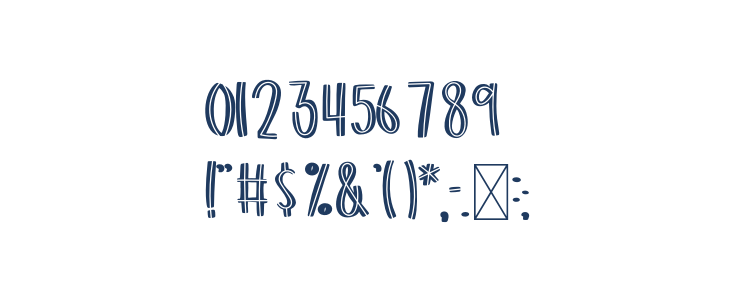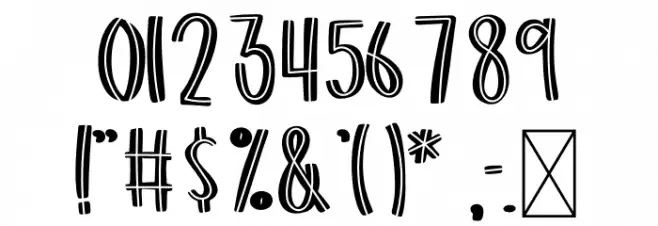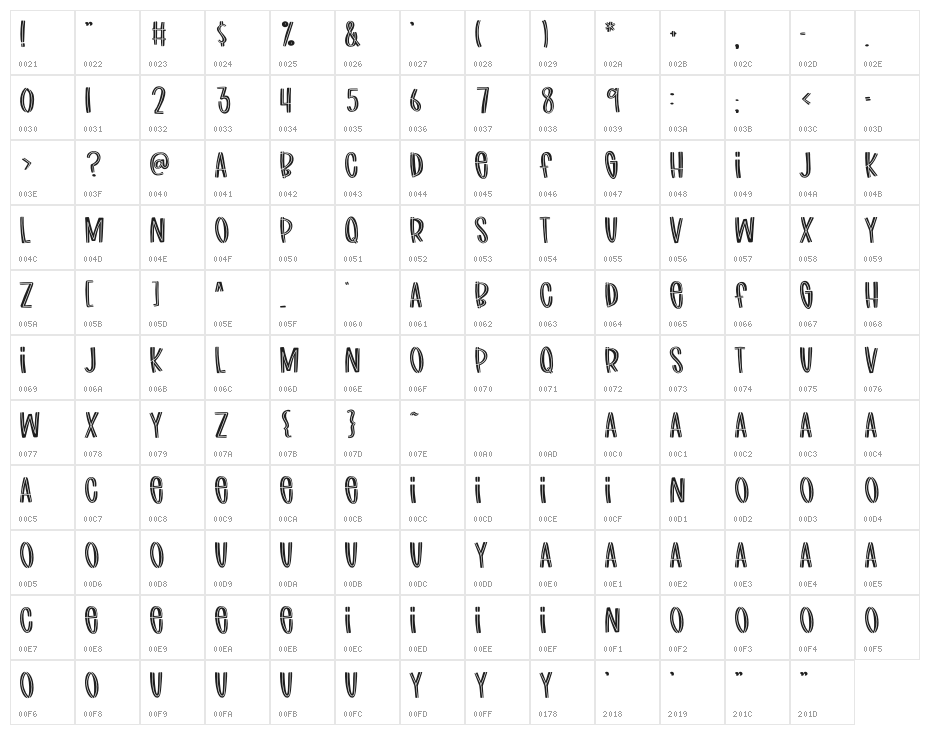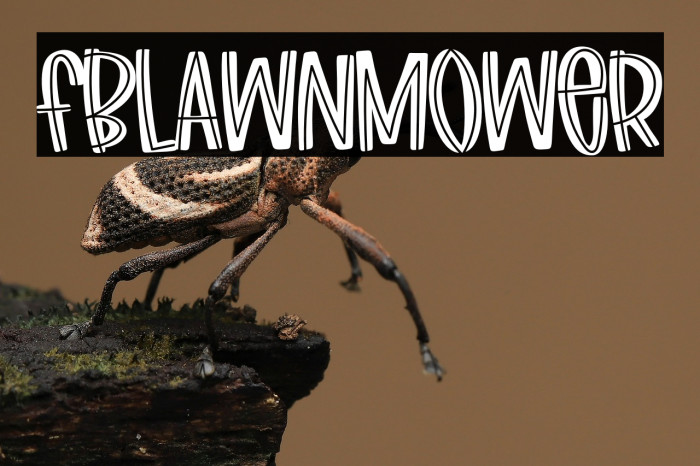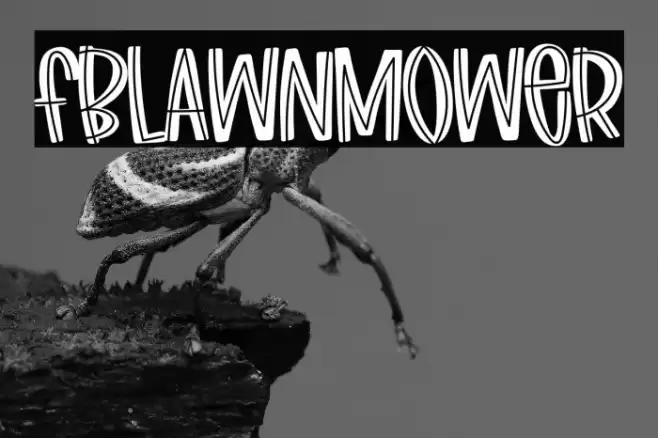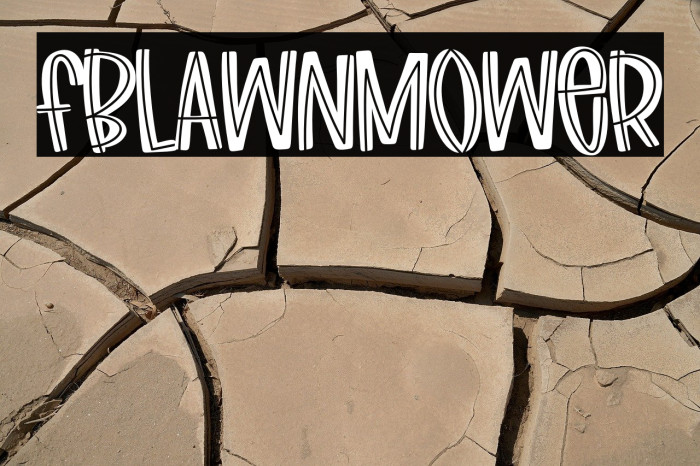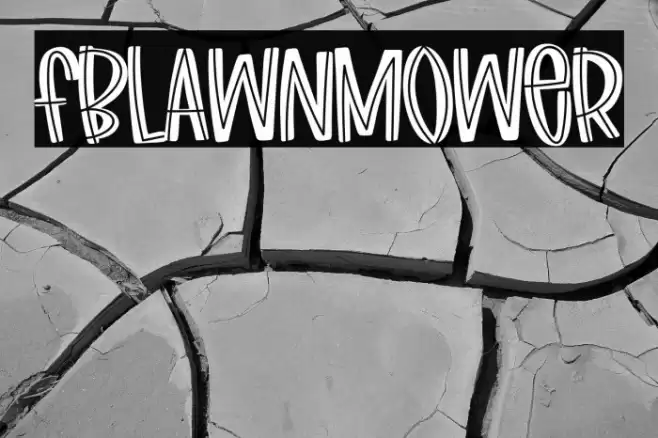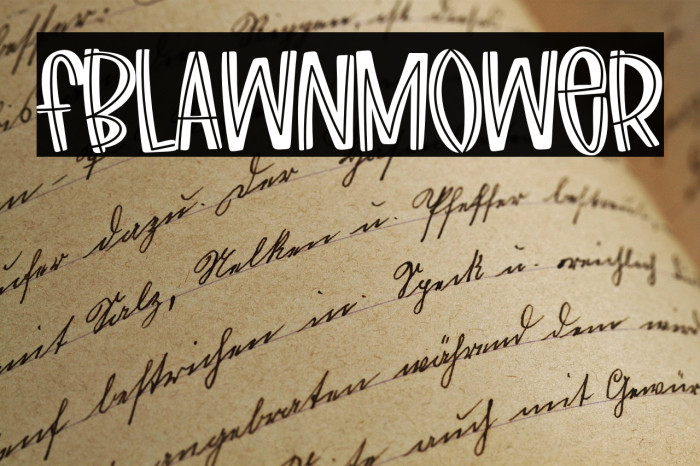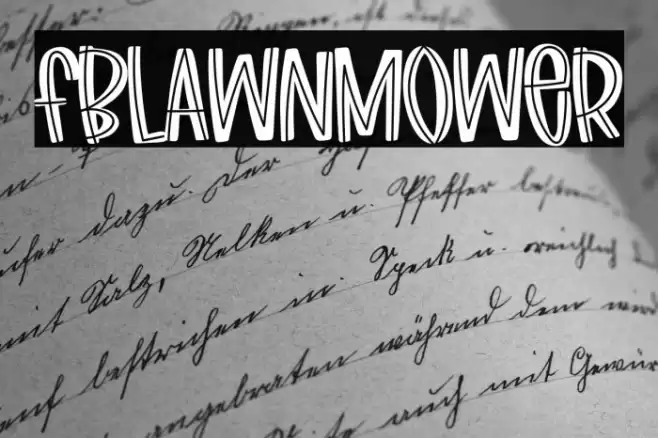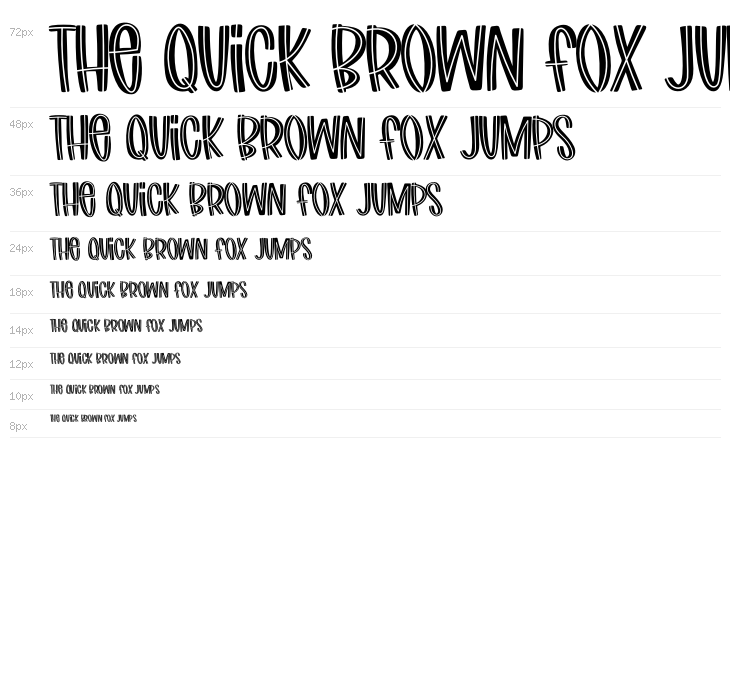
FBLawnmower Font
FBLawnmower Description
This font features a playful and bold design with a hand-drawn aesthetic. The letters are tall and narrow, with a slight slant that adds a dynamic feel. Each character is outlined, creating a striking contrast between the thick strokes and the inner space. The uppercase and lowercase letters maintain a consistent style, while the numbers and special characters complement the overall look. This font's unique style makes it suitable for projects that require a fun and informal touch.
| Overall Style | Playful, Hand-drawn |
| Proposed Projects | Ideal for children's book covers, playful branding, event posters, and creative social media graphics. |